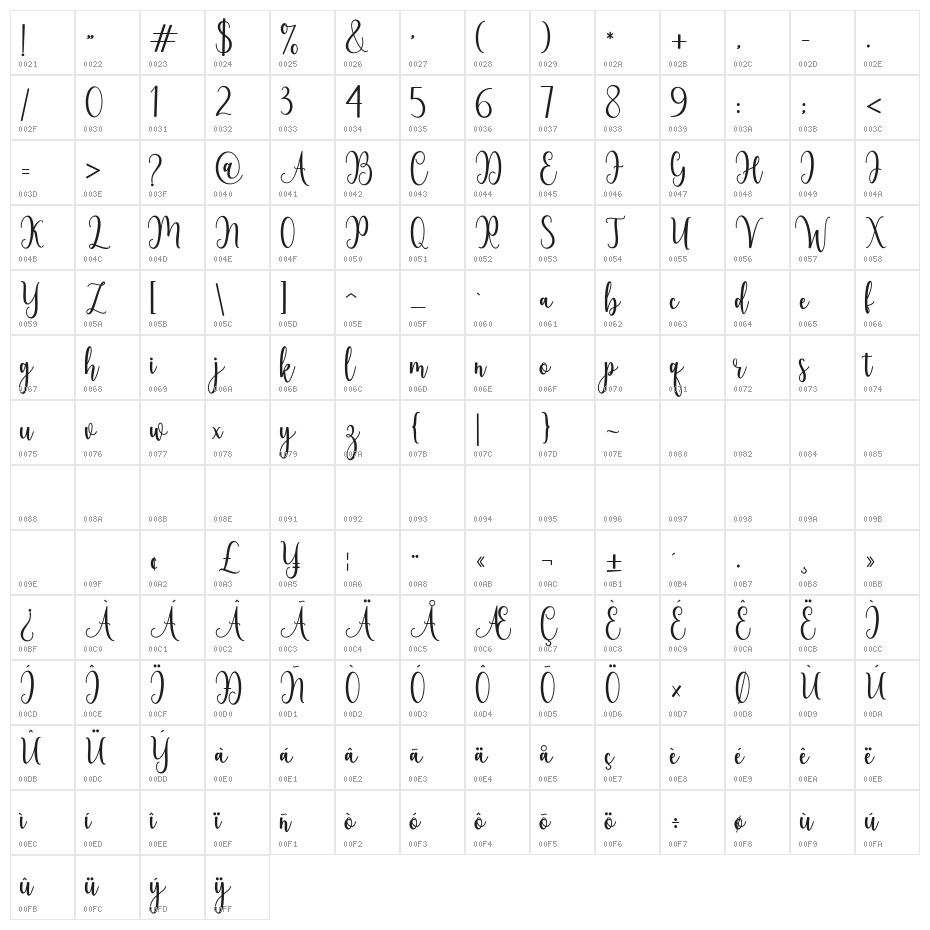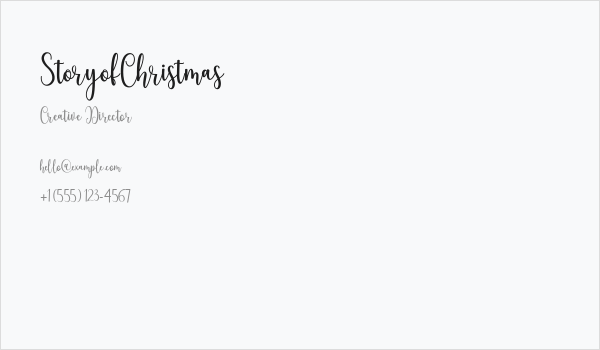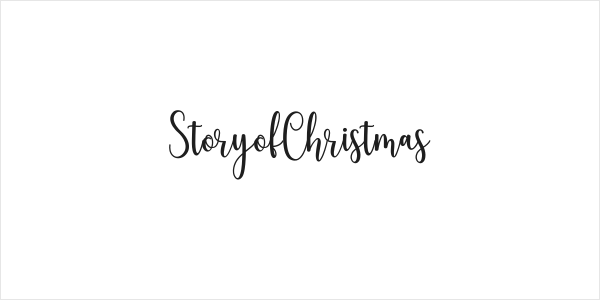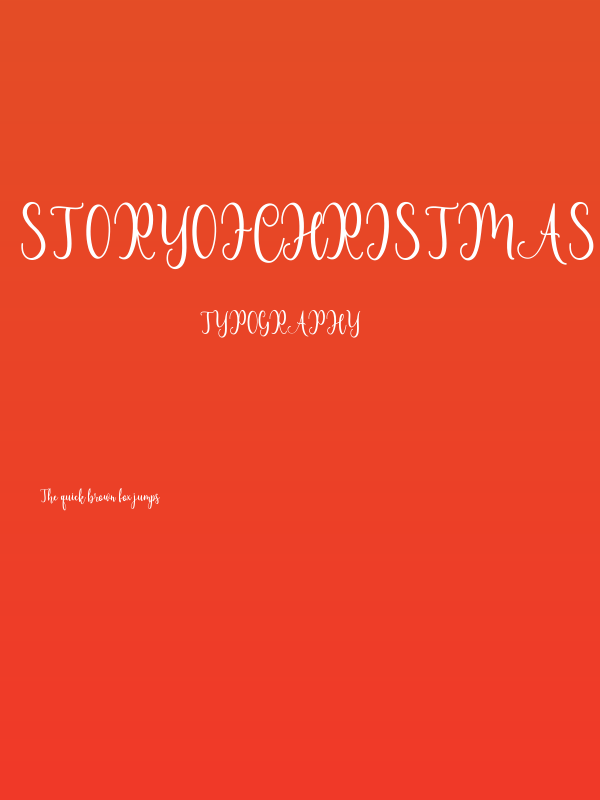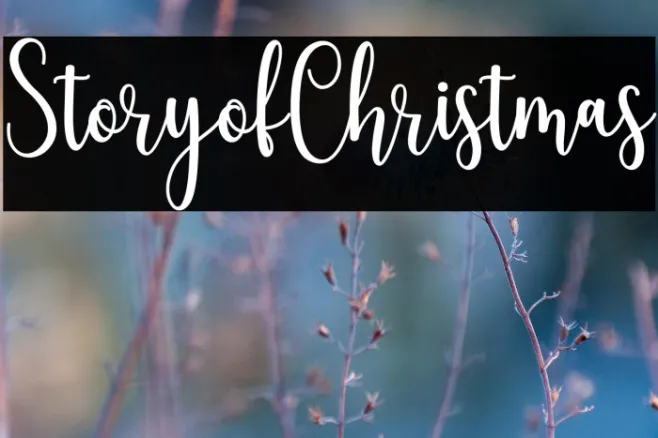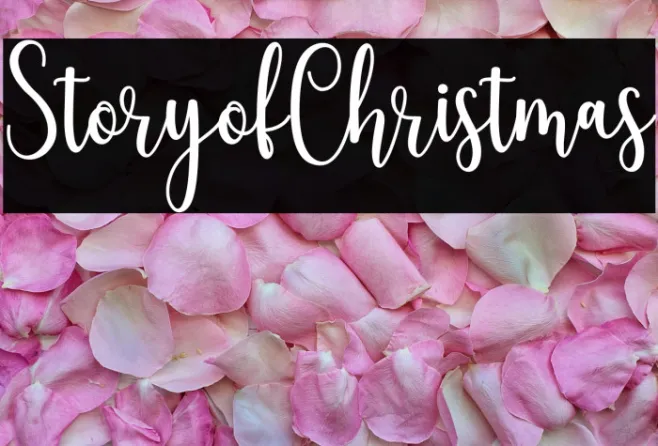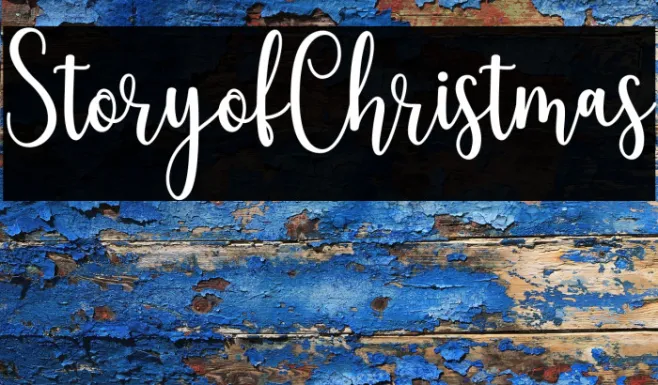
StoryofChristmas Font
StoryofChristmas Description
This font exudes a whimsical and festive charm, perfect for holiday-themed projects. The uppercase letters are elegantly crafted with a flowing, cursive style that adds a touch of sophistication and playfulness. The lowercase letters continue this theme with a slightly more casual feel, maintaining the fluidity and grace of the script. The numerals are clear and legible, with a slight slant that complements the overall style. Special characters are thoughtfully designed to match the aesthetic, making this font versatile for various uses. Its unique blend of elegance and playfulness makes it ideal for creating eye-catching invitations, greeting cards, and festive decorations.
| Proposed Projects | Ideal for holiday cards, invitations, festive decorations, and branding materials. |